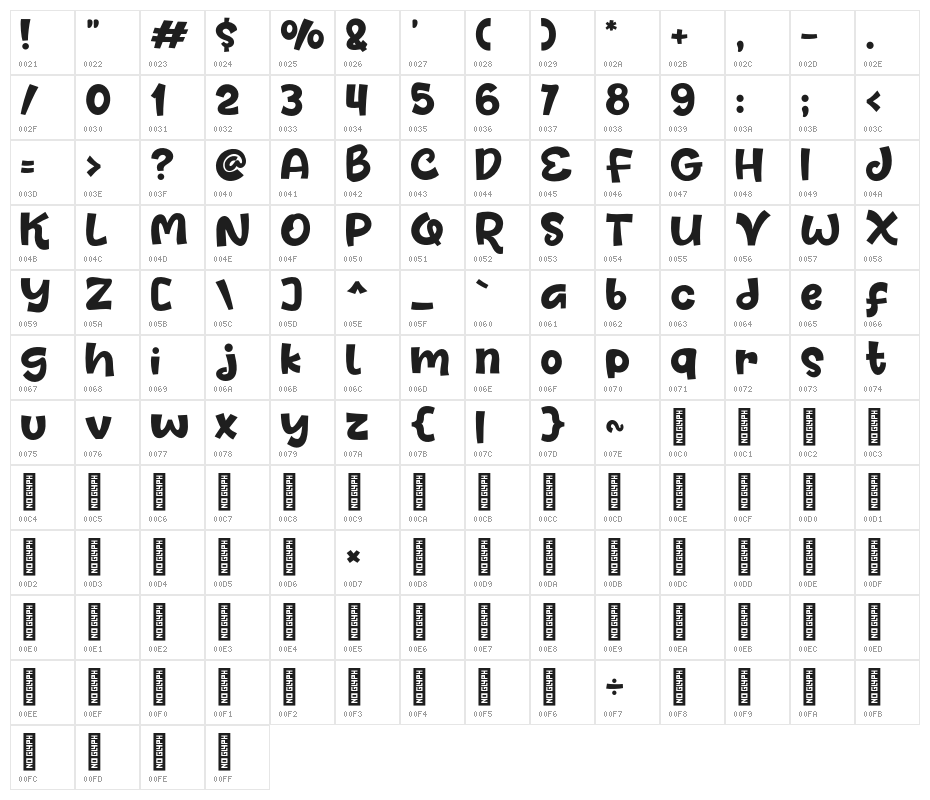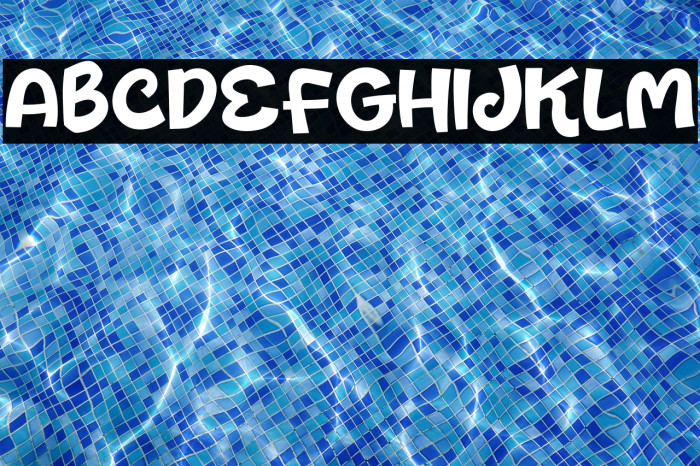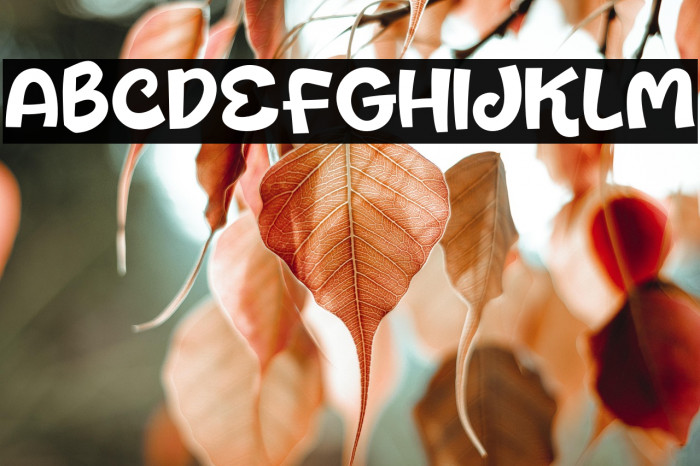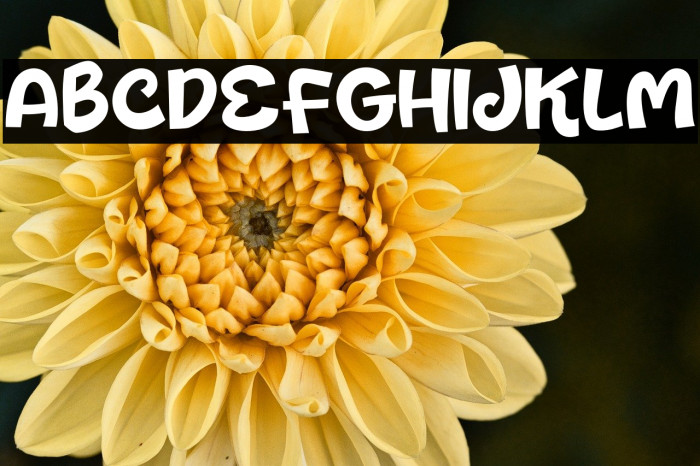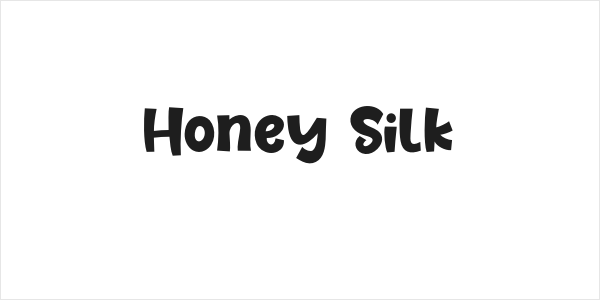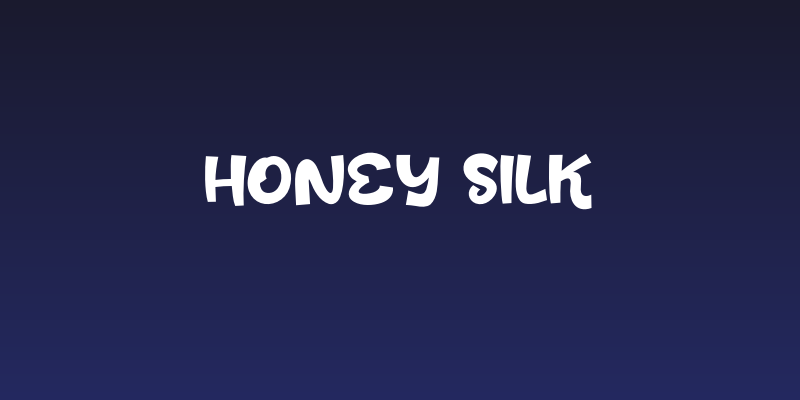
Honey Silk Font
Honey Silk Description
This playful and bold font features a whimsical, rounded style with a strong presence. The characters are thick and curvy, giving them a friendly and approachable feel. The uppercase and lowercase letters maintain a consistent weight, while the numbers and special characters are designed to match the overall aesthetic. The font's unique personality makes it suitable for creative and fun projects, where a sense of joy and energy is desired. Its boldness ensures readability, while the rounded edges soften the overall look, making it less formal and more inviting.
| Proposed Projects | Ideal for children's books, playful branding, party invitations, and casual posters. |